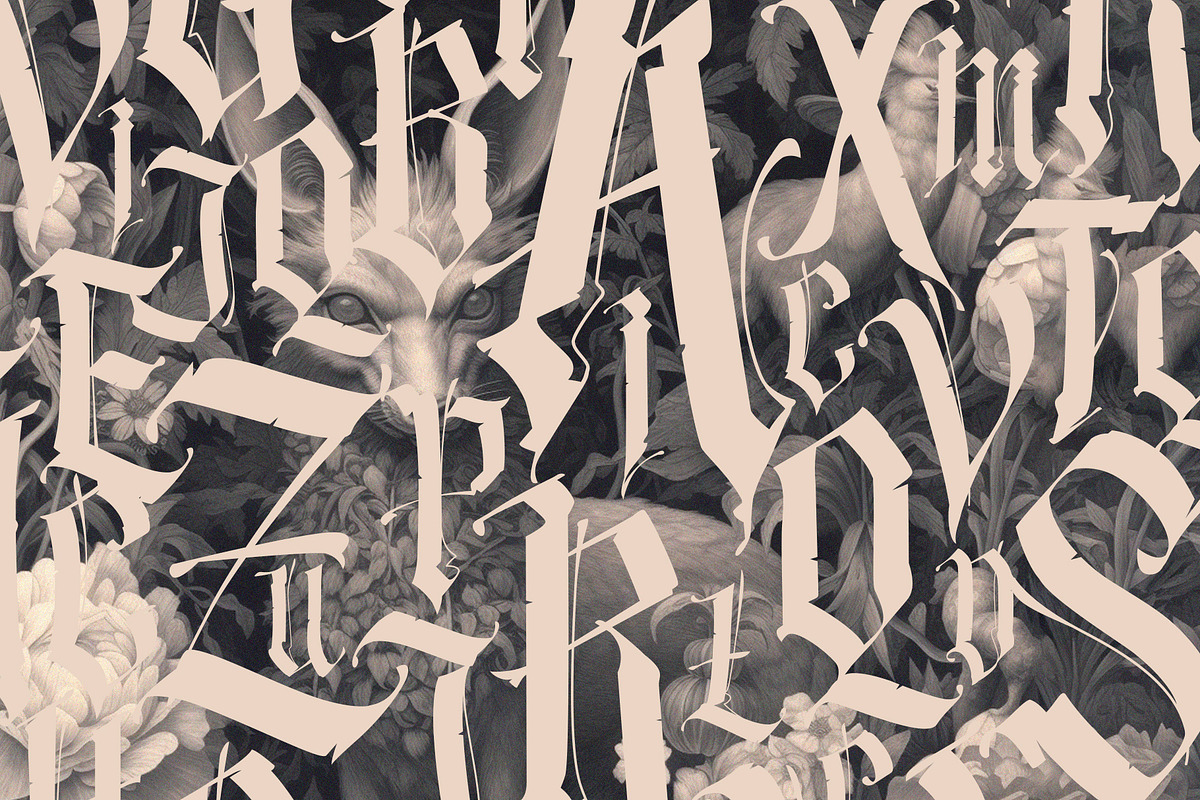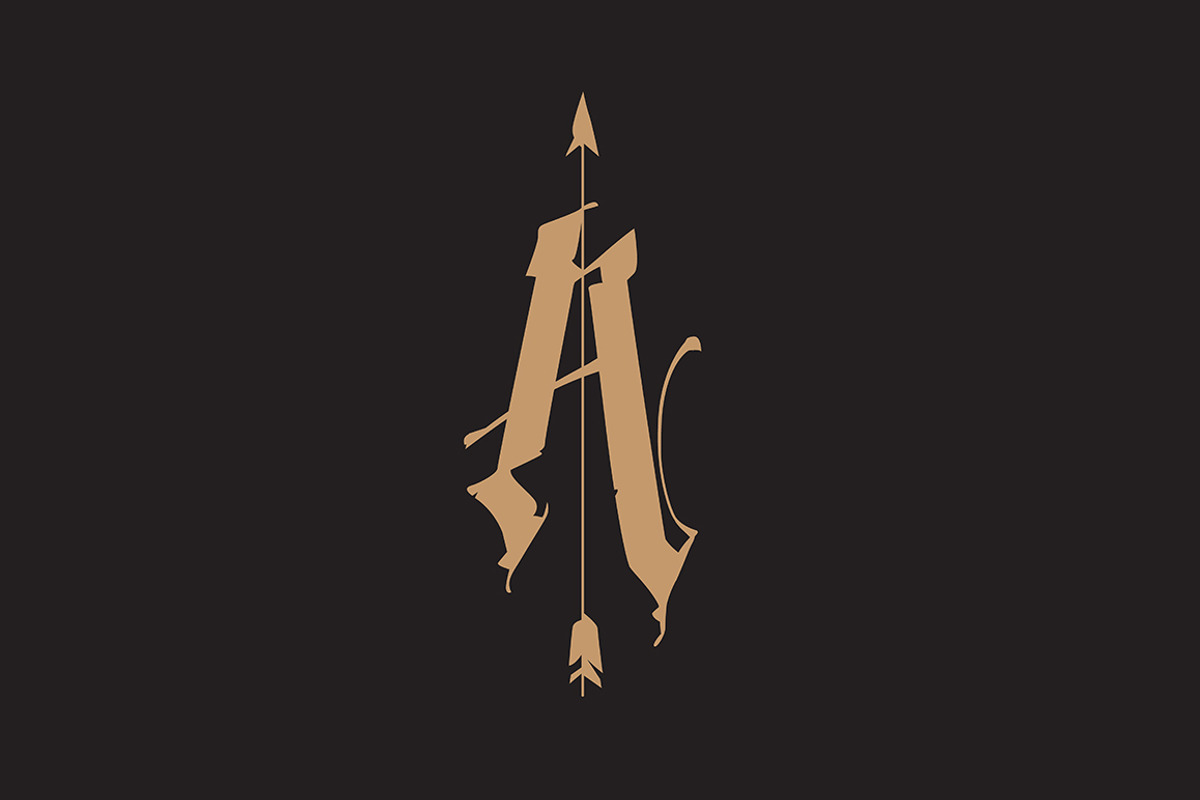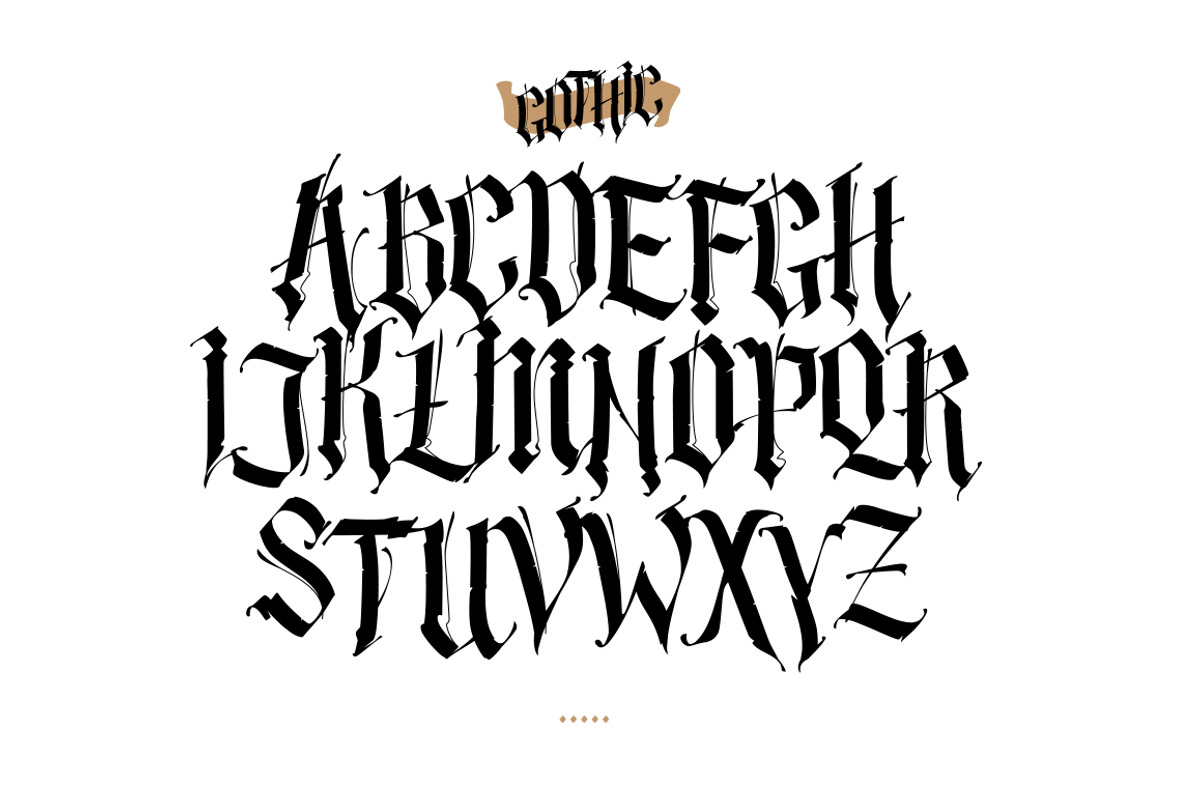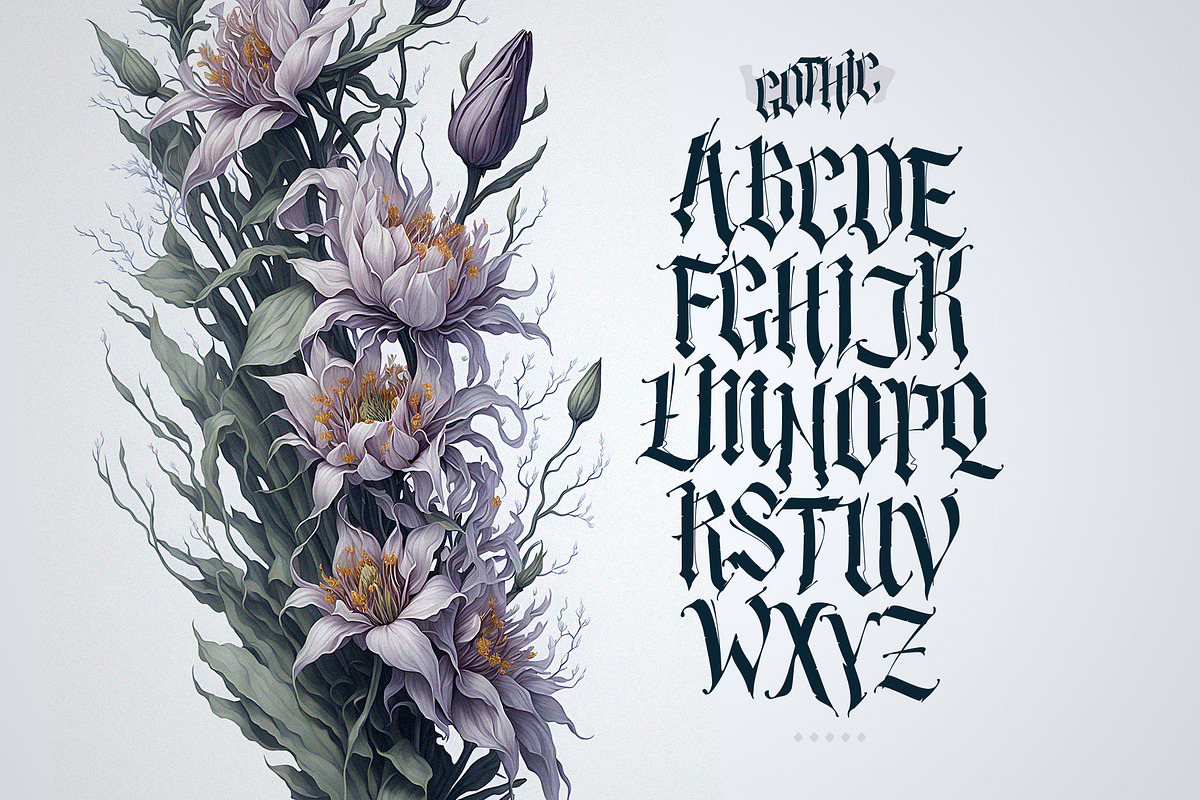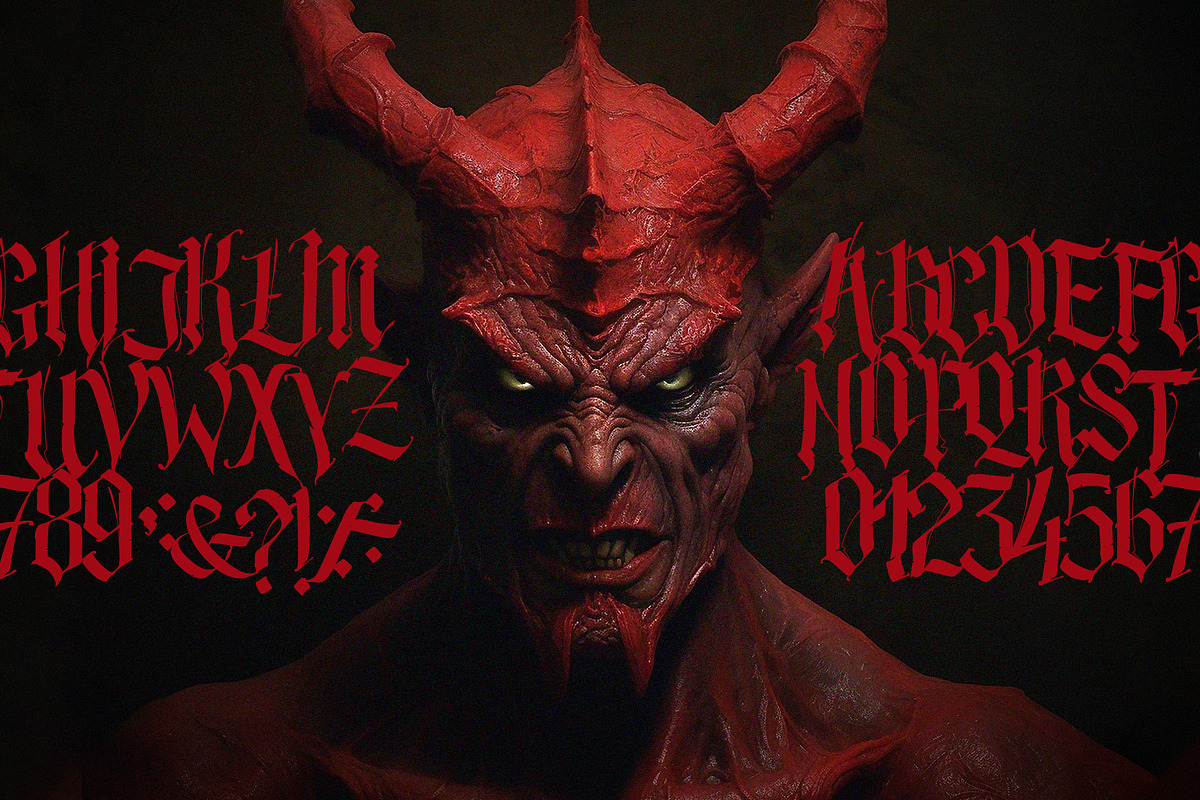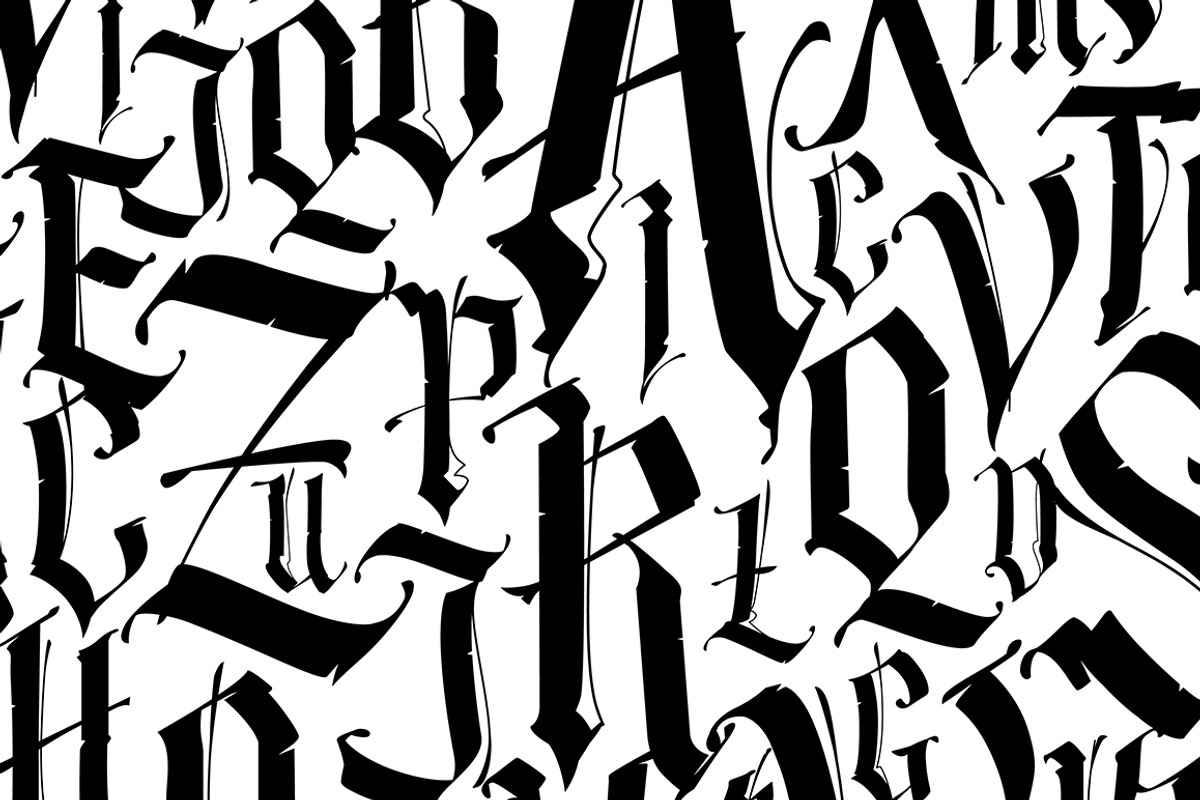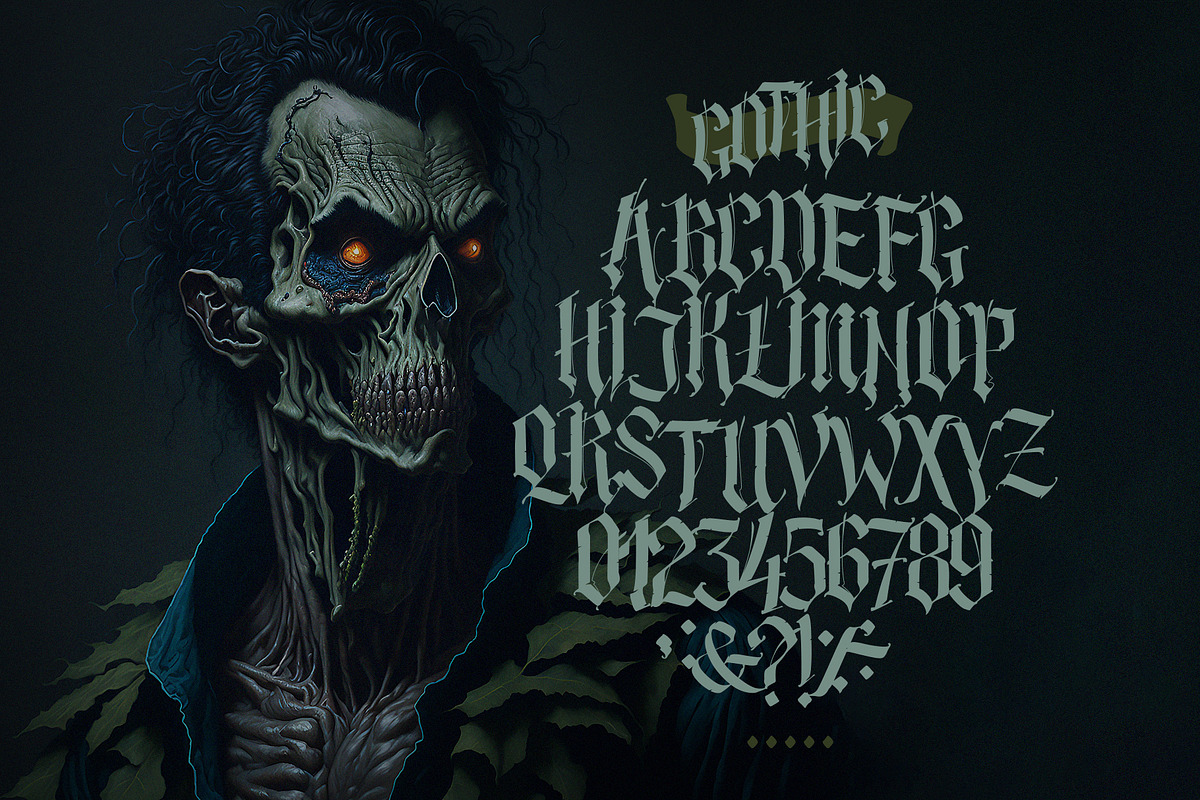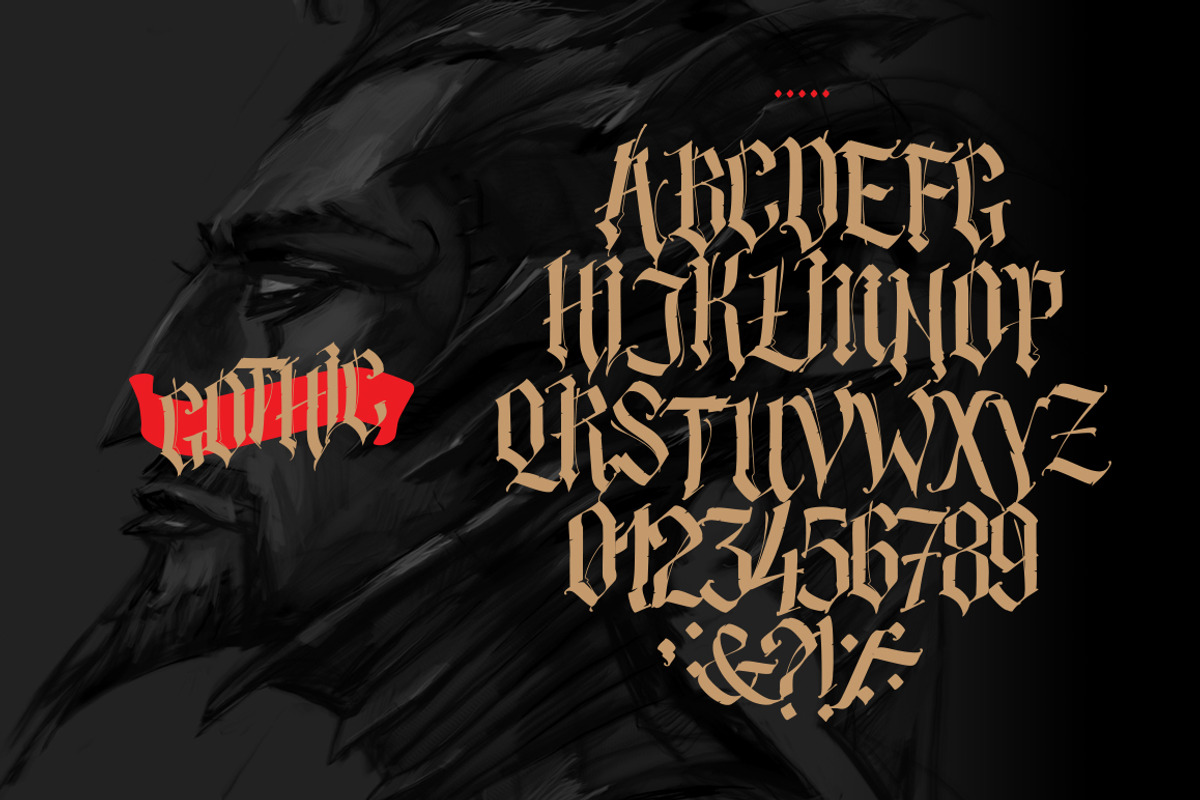
Gothic Font
You can also combine this font with other types of fonts according to your needs. This font is perfect for branding, logo design, cover design, books, magazines, apparel designs, headlines, etc
The font contains only latin letters of the English alphabet. In order to use the beautiful swashes, you need a program that supports OpenType features such as Adobe Illustrator, Adobe Photoshop. In the font, only those letters that you see in the screenshots.
Gothic Font by GeekClick fits naturally into Branding, posters, packaging, typography.